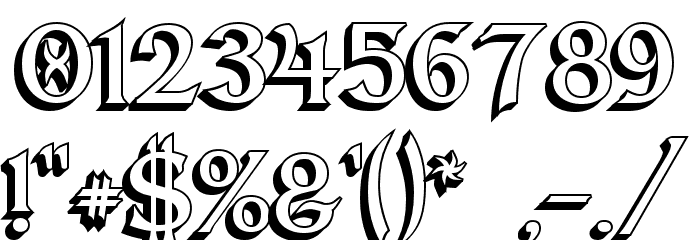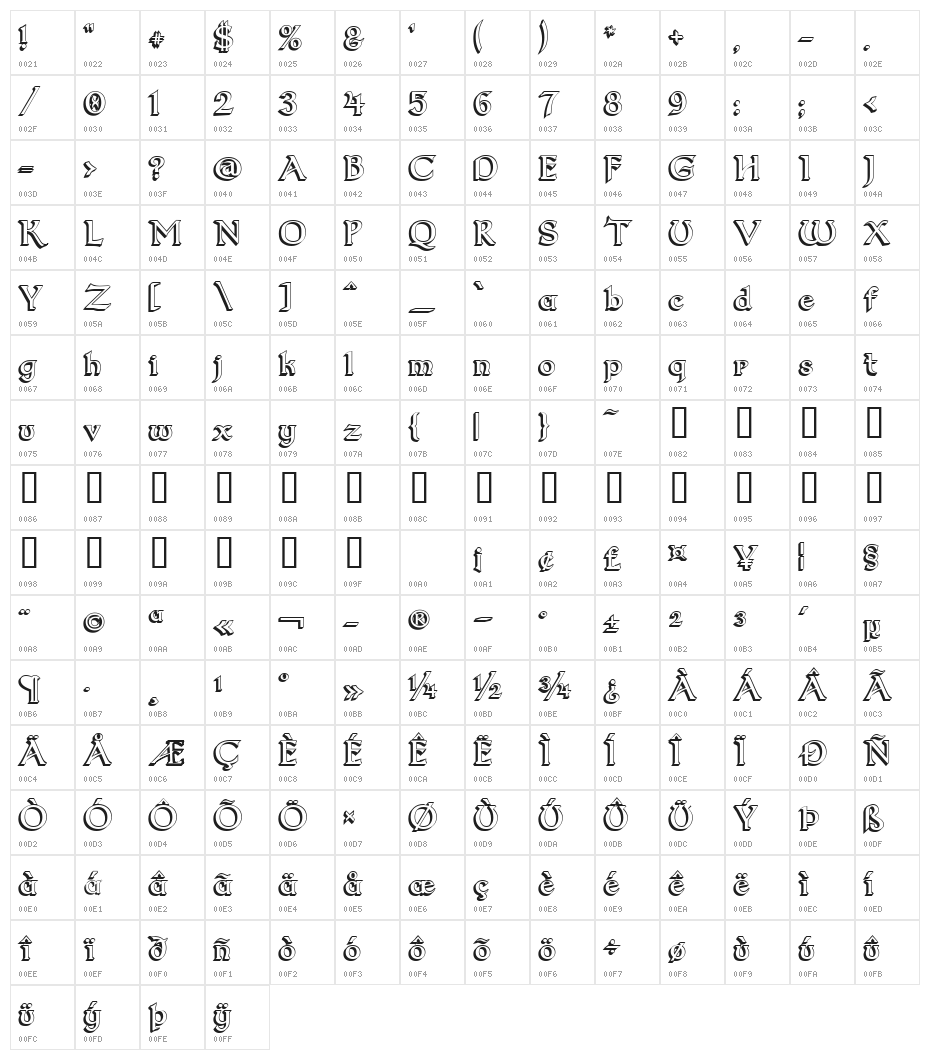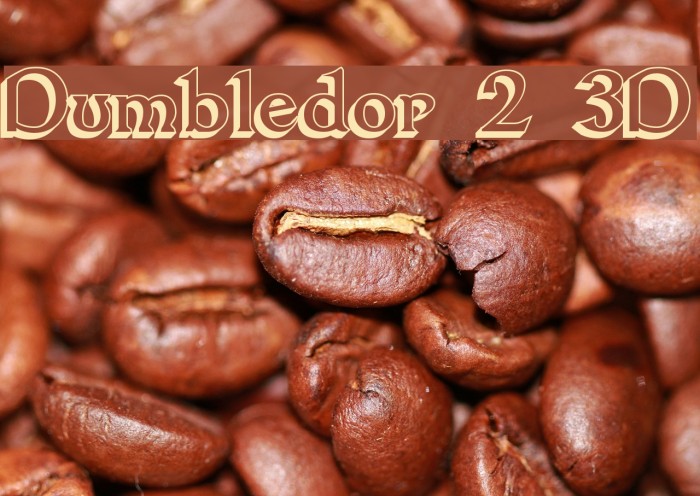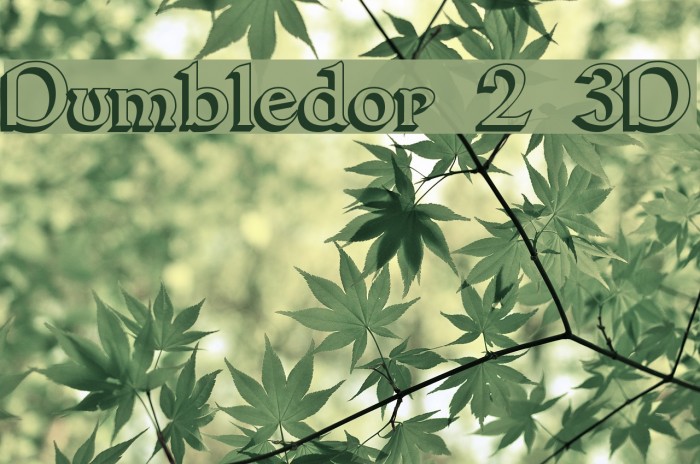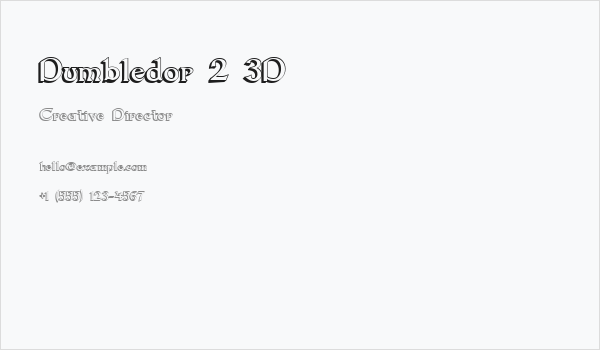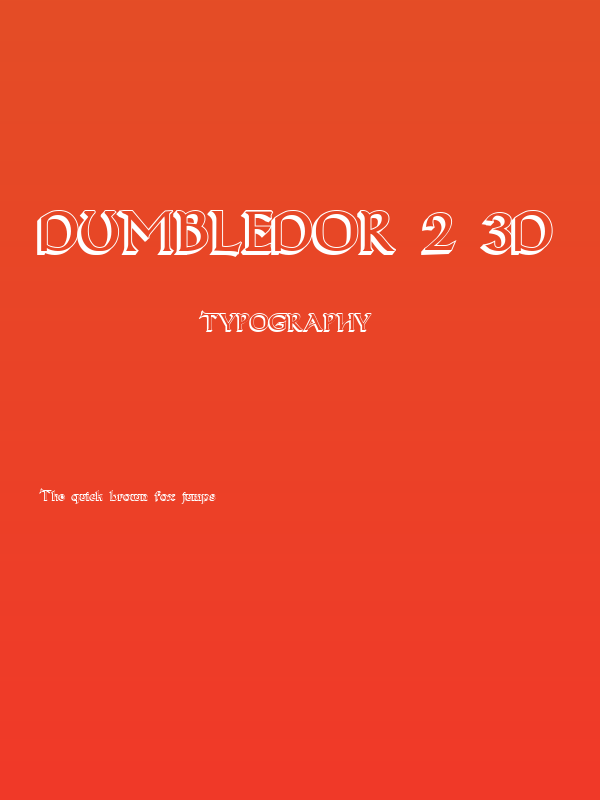
Dumbledor 2 3D Font
This font features a bold and dramatic style with a three-dimensional effect that gives it a striking appearance. The uppercase letters have sharp, angular serifs, while the lowercase letters maintain a consistent style with slightly softer curves. Numbers and special characters follow the same bold and dimensional design, making them stand out. The font's shadowing effect adds depth, making it ideal for eye-catching designs. Its unique style is reminiscent of vintage or fantasy themes, making it suitable for projects that require a touch of elegance and drama.
Overall StyleVintage
Proposed ProjectsIdeal for book covers, movie posters, fantasy-themed events, and branding that requires a dramatic and elegant touch.